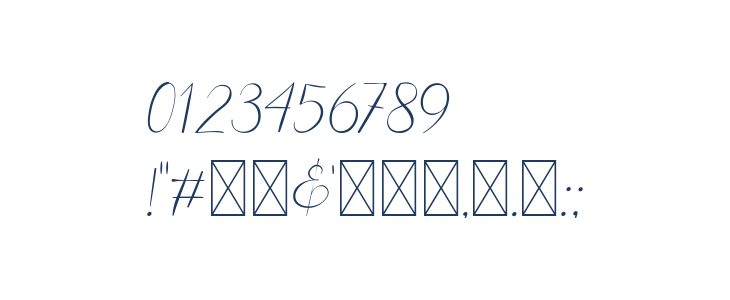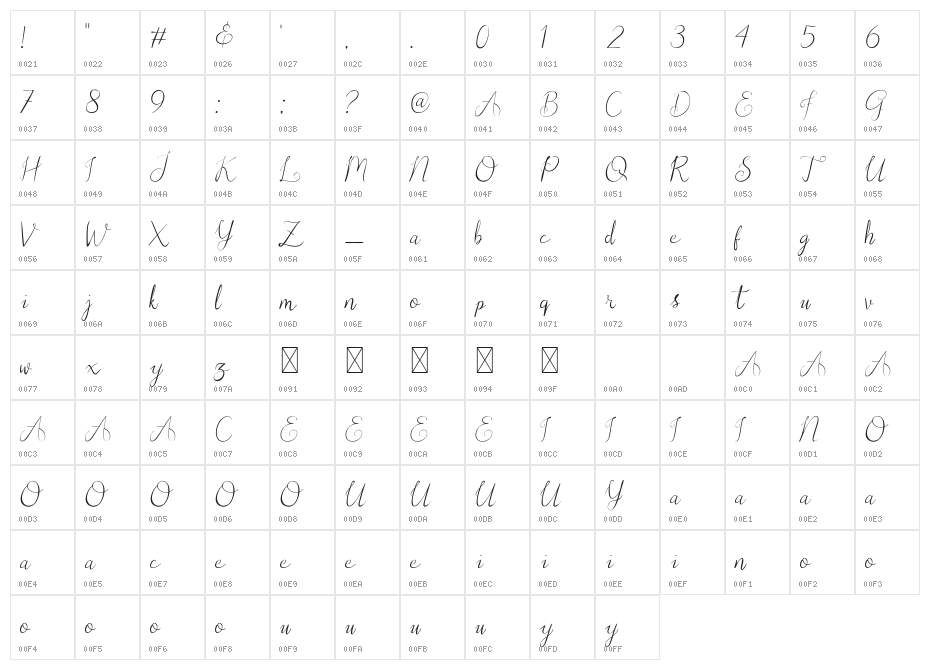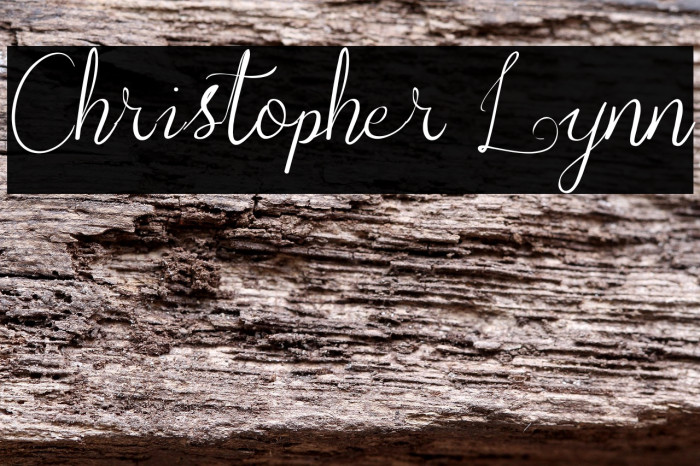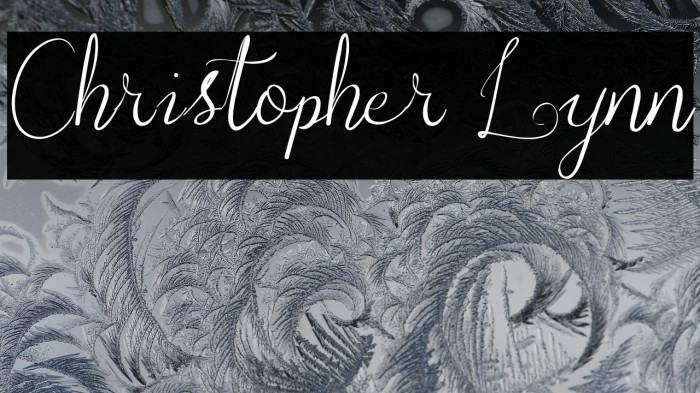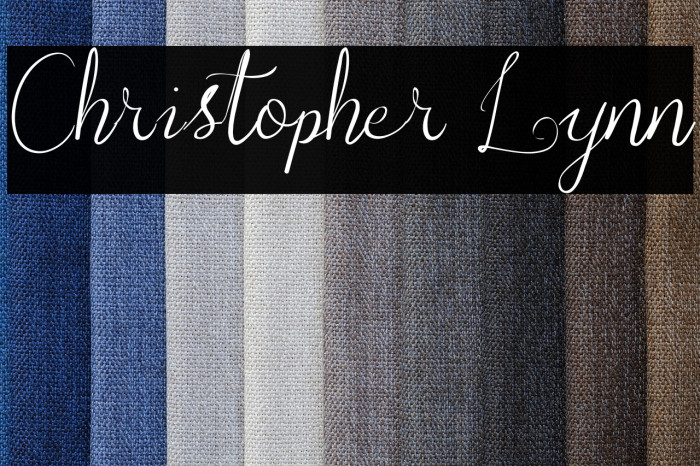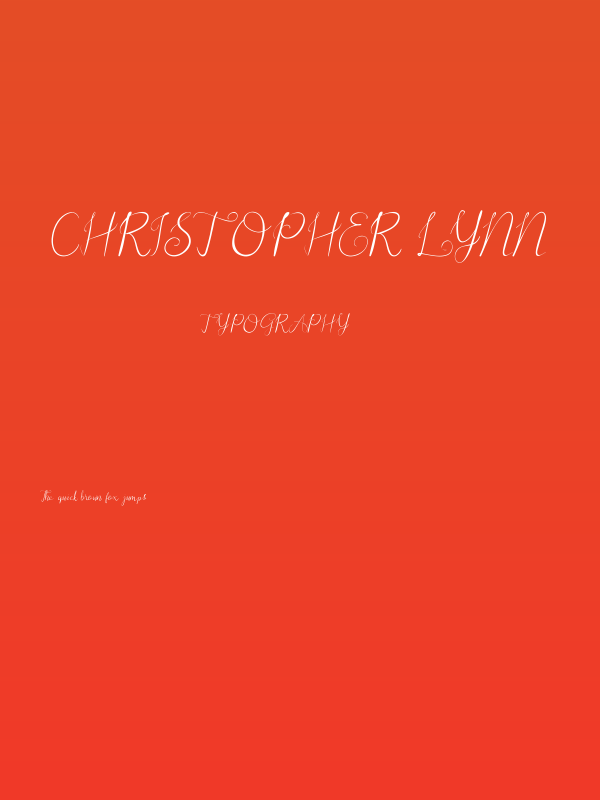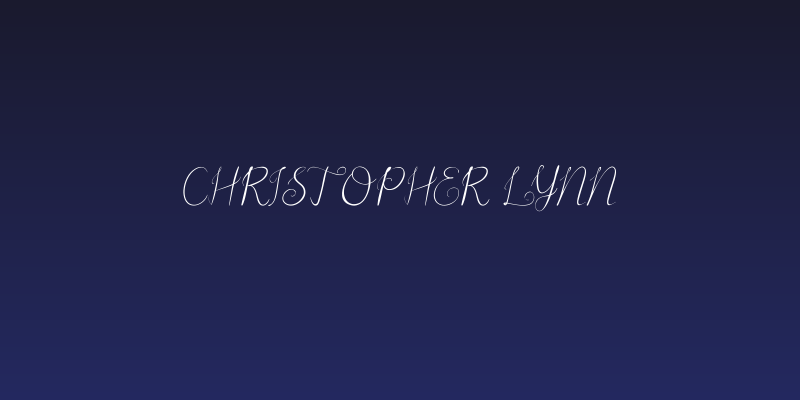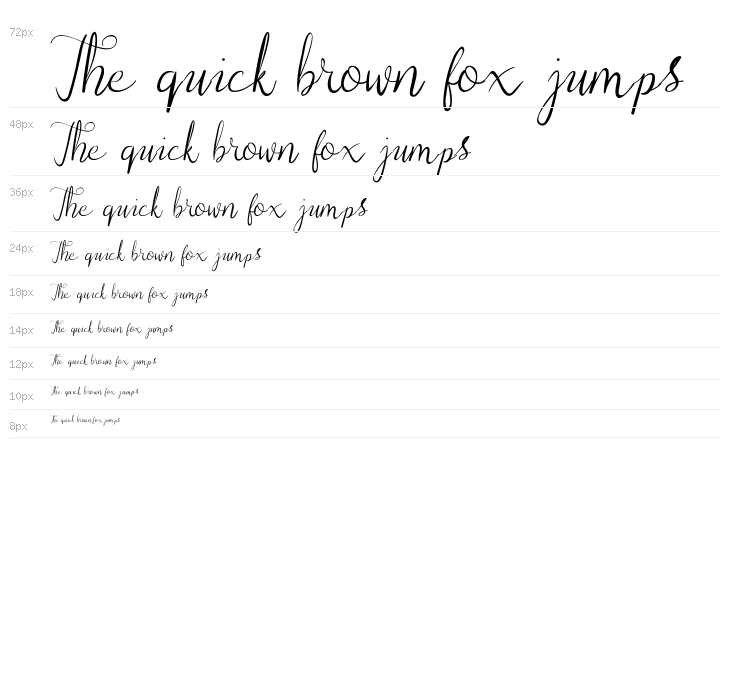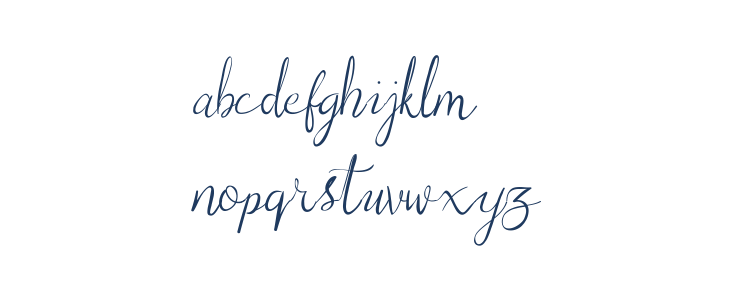
Christopher Lynn Font
Christopher Lynn Description
This elegant script font features a flowing, cursive style with delicate, elongated strokes and graceful loops. The uppercase letters are characterized by their intricate swirls and flourishes, creating a sense of sophistication and charm. The lowercase letters maintain a consistent fluidity, with smooth connections between characters that enhance readability while preserving the font's artistic flair. The numerals and special characters are designed to complement the overall aesthetic, with a harmonious blend of curves and lines. This font exudes a sense of elegance and refinement, making it ideal for formal invitations, branding, and decorative purposes.
| Overall Style | Elegant, Decorative |
| Use Case | Invitations, Branding, Decorative text |
| Proposed Projects | Ideal for wedding invitations, luxury branding, greeting cards, and decorative design projects. |